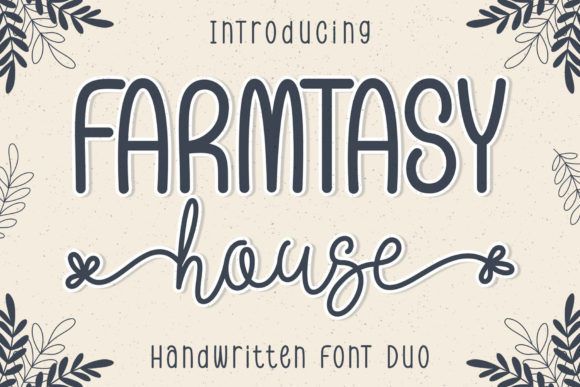
Journey to a quaint countryside retreat, where rustic charm meets modern elegance in the enchanting Farmtasy House font duo. This meticulously crafted script and display font family captures the essence of a timeless farmhouse, evoking a sense of nostalgia and warmth with every letterform.
Embrace the allure of Farmtasy House as you explore its delicate strokes and graceful curves. Each character exudes a charm that will captivate and inspire, whether adorning wedding invitations, heartfelt letters, or imaginative card designs. Let this font duo transport you to a world of understated beauty, where simplicity and sophistication converge.
Unleash your creativity and explore the endless possibilities of Farmtasy House. Its versatility extends to a myriad of projects, from personalized gift tags to eye-catching logos and branding materials. Its PUA encoding ensures effortless access to all glyphs and swashes, empowering you to add an exquisite touch of detail to your designs.
Immerse yourself in the tranquility of Farmtasy House, where vintage aesthetics blend seamlessly with modern sensibilities. This font duo is a testament to the enduring appeal of classic design, offering a timeless elegance that will elevate your creations and leave a lasting impression.